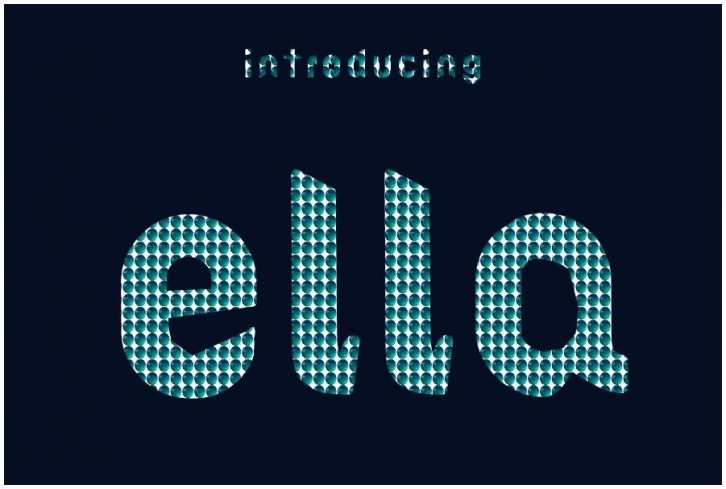
Ella FONT Download
Ella Font Download
Ella is a handwritten signature script with a natural & stylish flow. It’s the perfect font for adding an authentic touch to any design project.